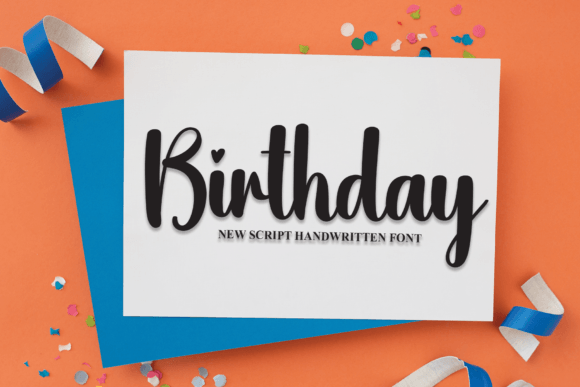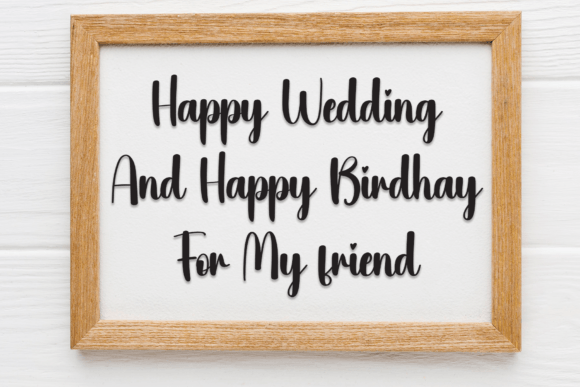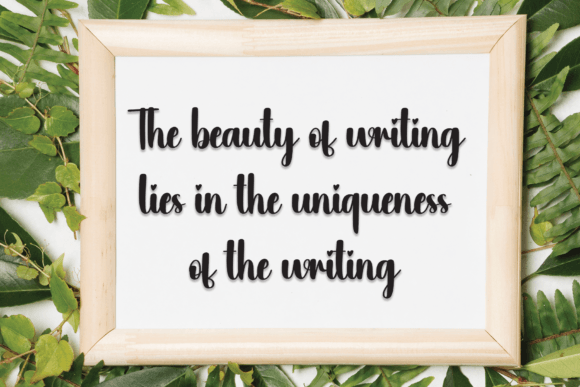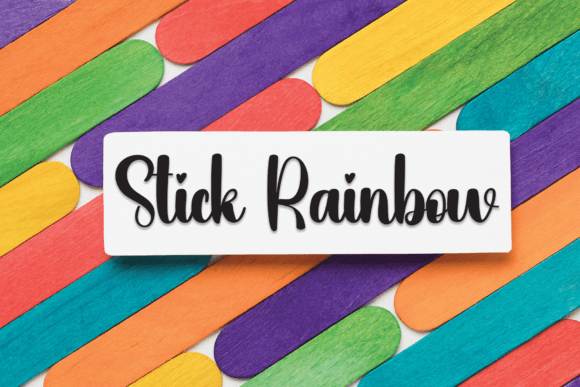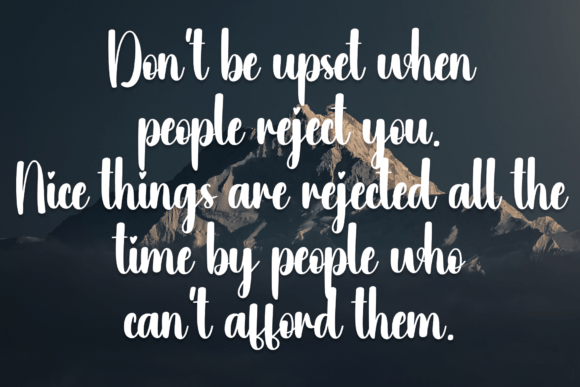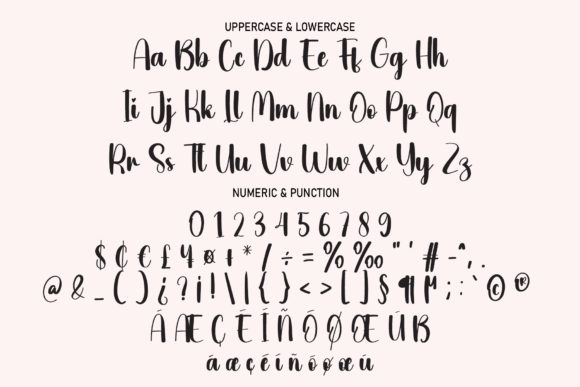
Introducing Daylight Font: Elevate Your Designs with Elegant Handwriting
Are you a designer or crafter looking for the perfect font to add a touch of elegance to your projects? Look no further than Daylight Font. This stunning collection of handwriting-style letters is perfect for a wide range of applications, from wall displays and wedding invitations to social media post logos and product packaging.
What is Daylight Font?
Daylight Font is a unique and beautiful collection of letters that are designed to mimic the elegance of handwriting. With its flowing lines and cursive style, this font is perfect for adding a personal touch to any project. Whether you’re a professional designer or a crafty DIY enthusiast, Daylight Font is sure to become a favorite in your collection.
Uses for Daylight Font
Daylight’s latest style letters are incredibly versatile and can be used in a wide range of applications, including:
- Wall displays: Add a touch of elegance to your wall art with Daylight Font.
- Wedding invitations: Make your wedding invitations truly special with this beautiful handwriting-style font.
- Social media post logos: Elevate your social media presence with custom logos created using Daylight Font.
- Advertisements: Grab attention with eye-catching ads that feature this stunning font.
- Product packaging: Add a touch of luxury to your product packaging with Daylight Font.
- Product designs: Create beautiful product designs that stand out from the crowd.
- Labels: Add a personal touch to your labels with this elegant font.
- Photography: Use Daylight Font to create beautiful watermarks for your photos.
- Invitations: Create custom invitations for any occasion, from birthdays to graduations.
- Stationery: Add a touch of elegance to your stationery with Daylight Font.
Why Choose Daylight Font?
So why choose Daylight Font over other fonts on the market? Here are just a few reasons:
- Unique and elegant: Daylight Font is truly one-of-a-kind, with its flowing lines and cursive style.
- Versatile: This font can be used in a wide range of applications, from digital to print.
- High-quality: This font is designed to be high-quality and clear, even at small sizes.
Tips for Using Daylight Font
Here are a few tips for getting the most out of Daylight Font:
- Experiment with different sizes and colors to find the perfect look for your project.
- Use Daylight Font in combination with other fonts to create a unique and eye-catching design.
- Don’t be afraid to get creative and try new things – Daylight Font is perfect for experimenting with different design styles.
Daylight Font is a beautiful and versatile collection of handwriting-style letters that are perfect for designers and crafters. With its elegant flowing lines and cursive style, this font is sure to add a touch of sophistication to any project. Whether you’re creating wall displays, wedding invitations, or social media post logos, Daylight Font is the perfect choice. So why wait? Download Daylight Font today and start elevating your designs to the next level.